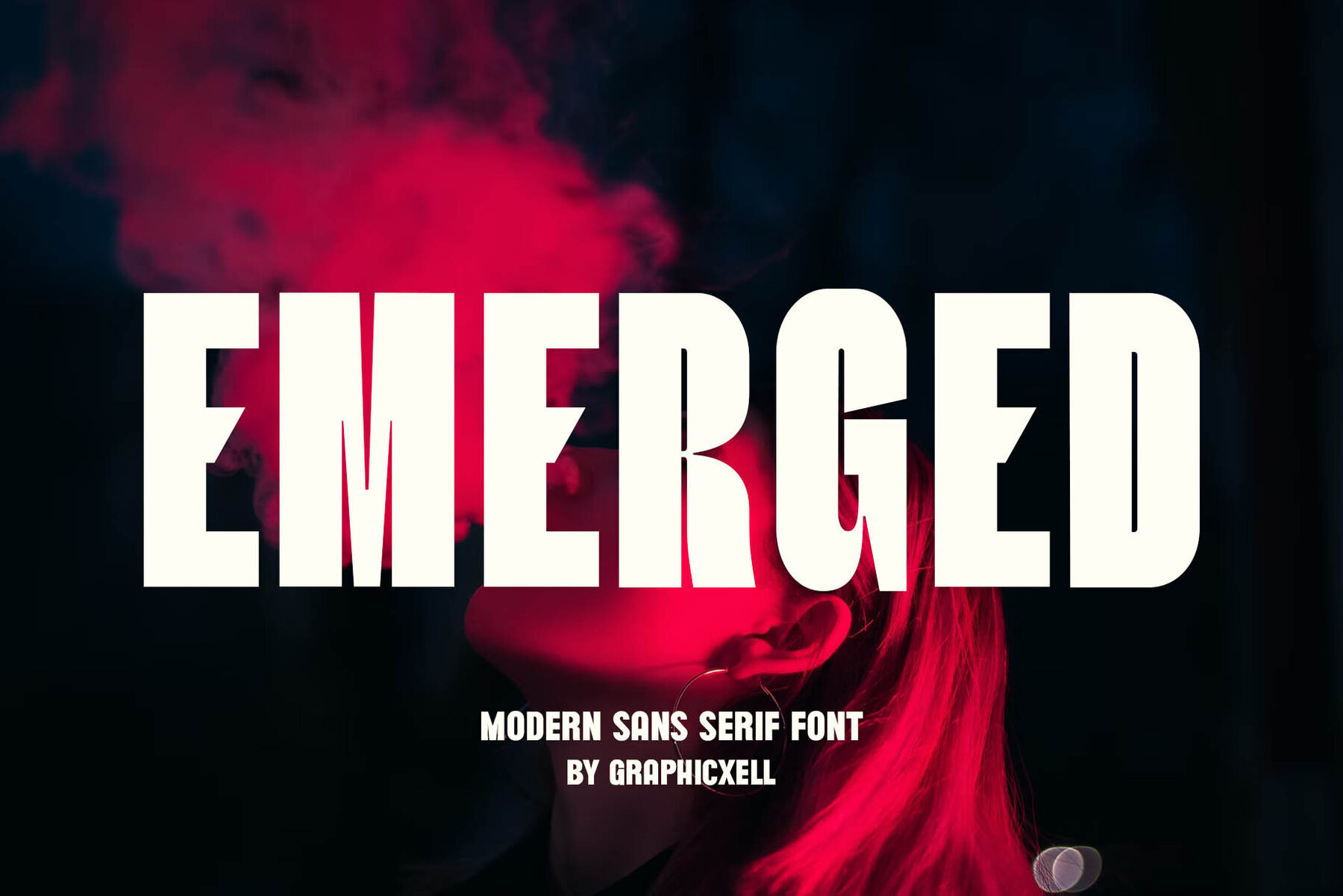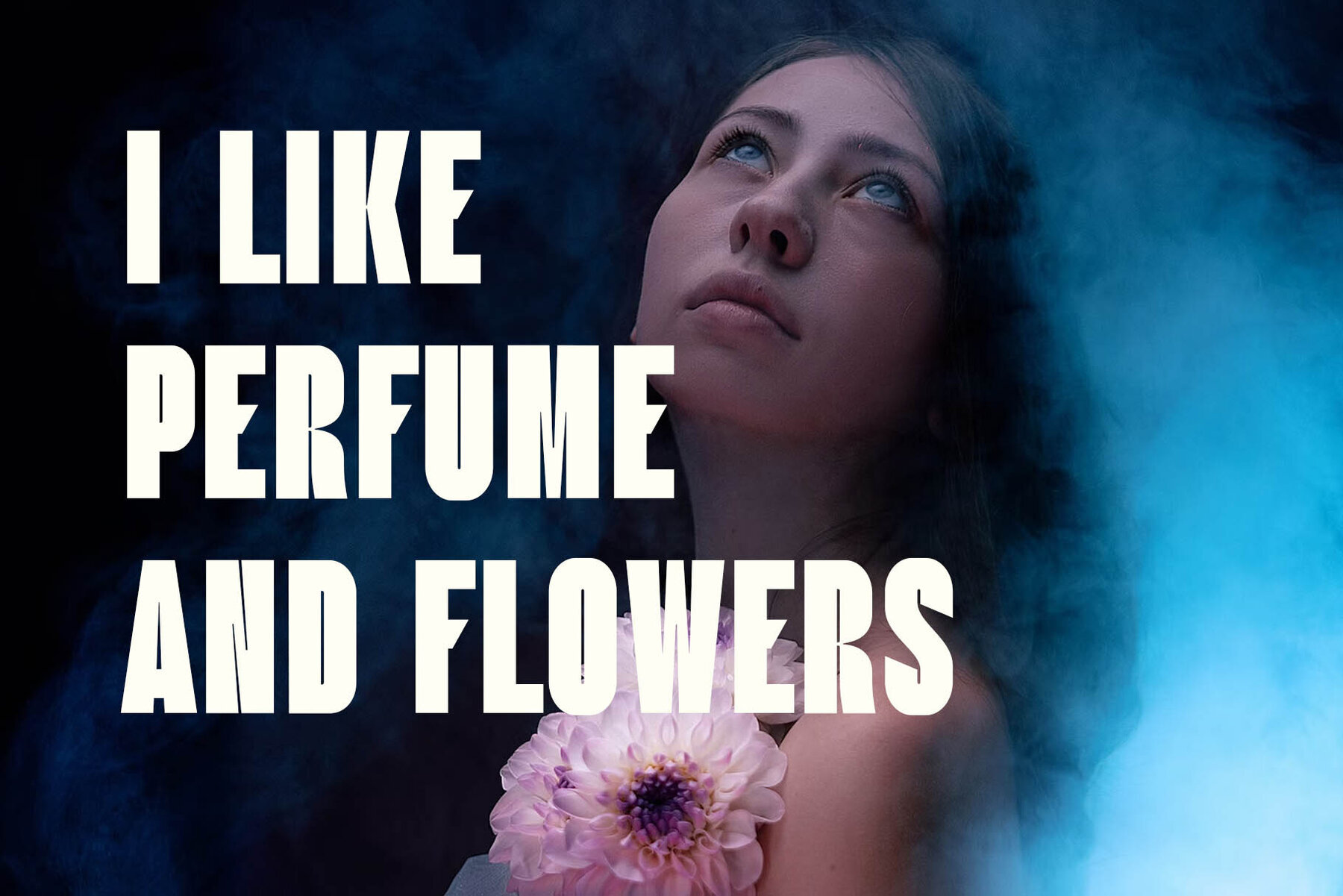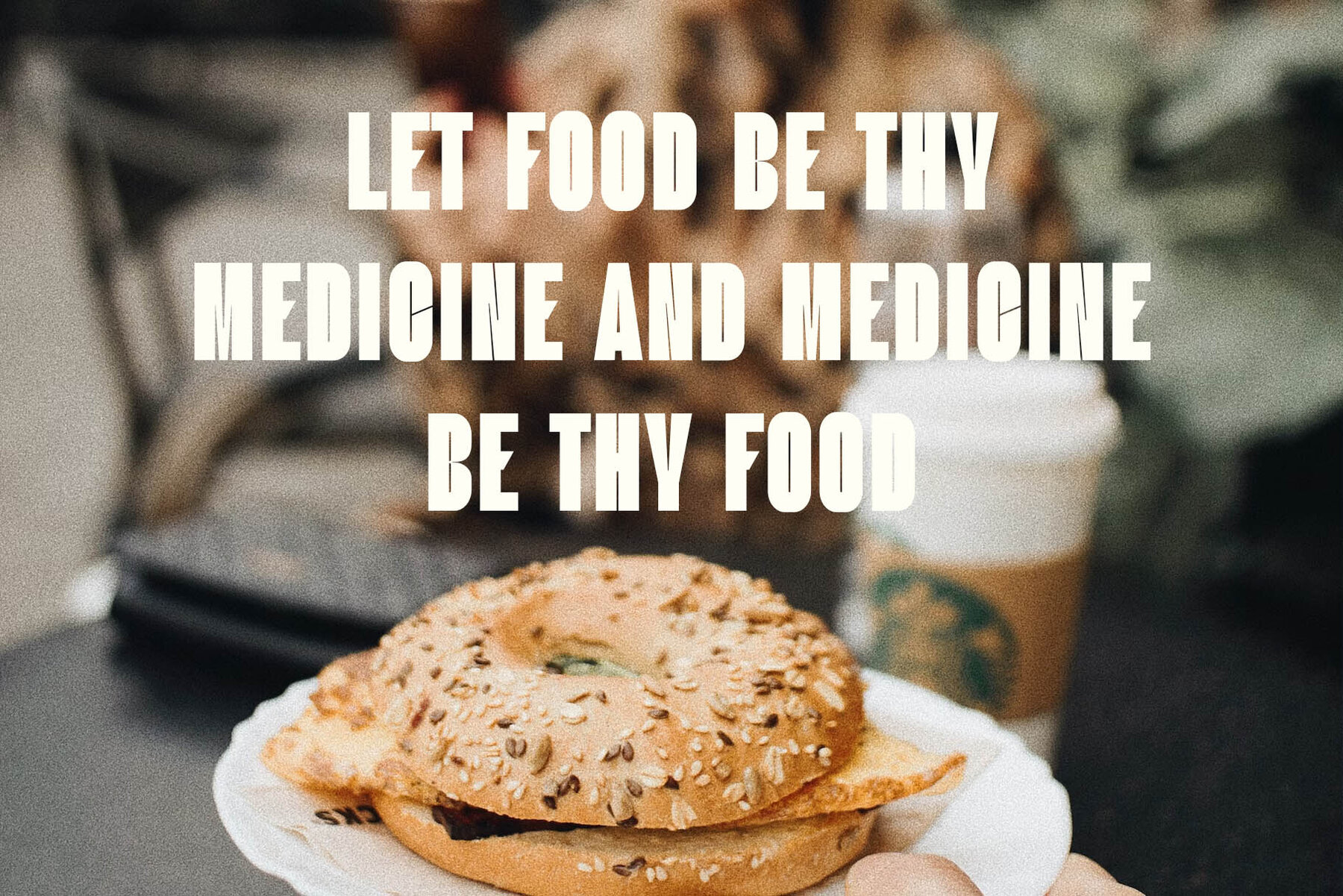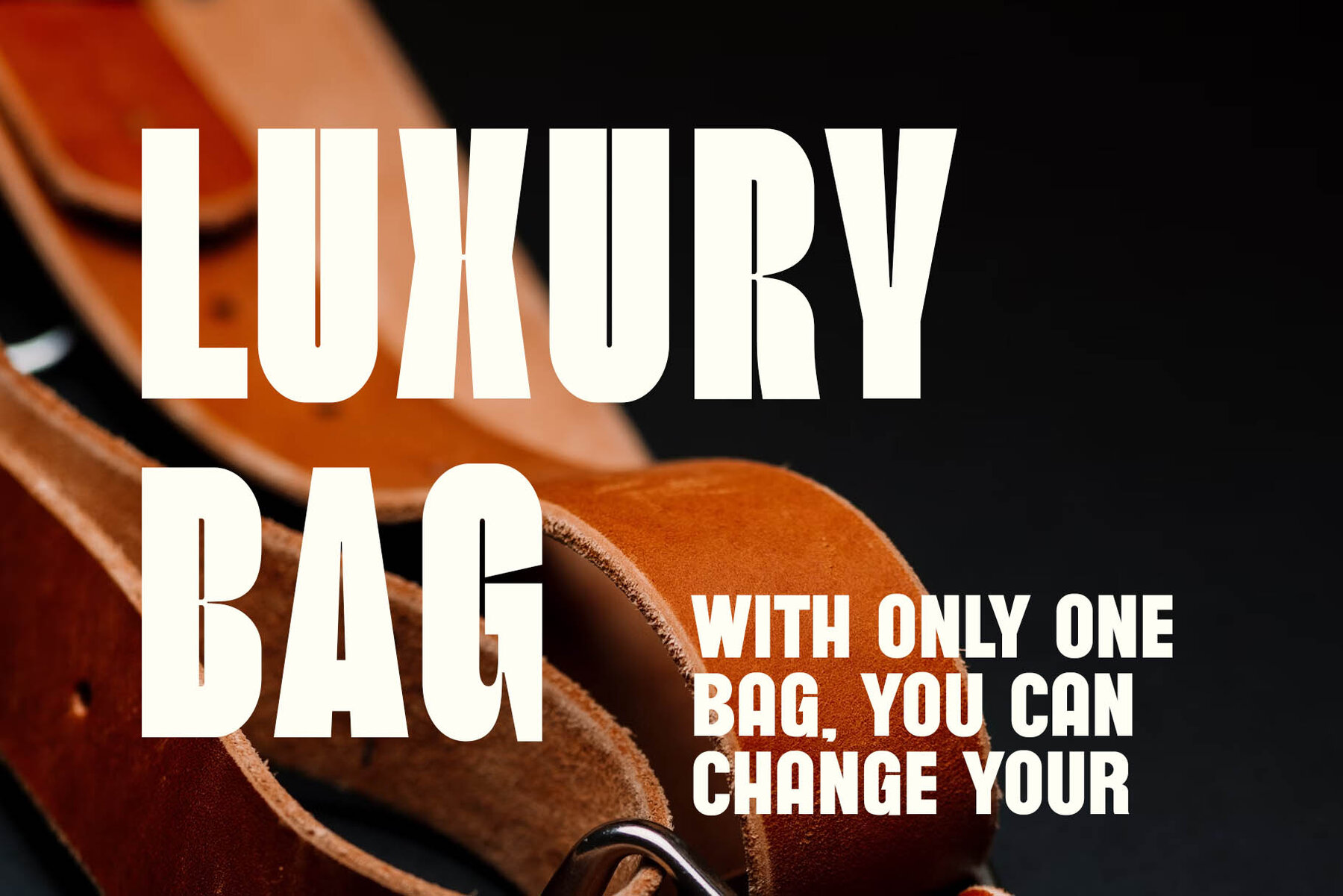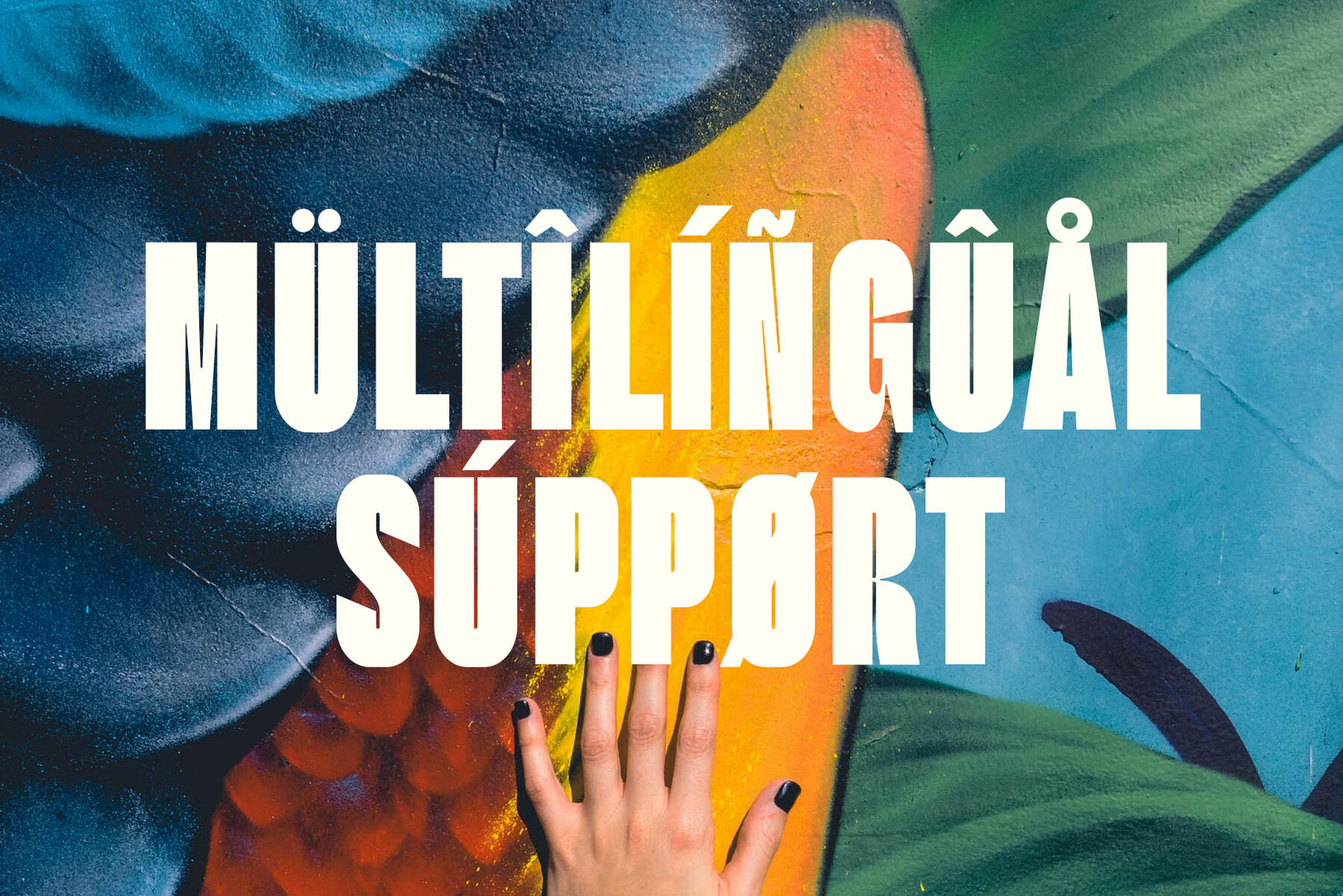
Emerged Font
Emerged
Emerged by Graphicxell draws inspiration from famous minimalist logos, making it an ideal choice for a range of design projects. Its versatility enhances templates, brochures, videos, advertising, branding, logos, invitations, layout designs, elegant crafts, beauty designs, and more.Emerged by Graphicxell